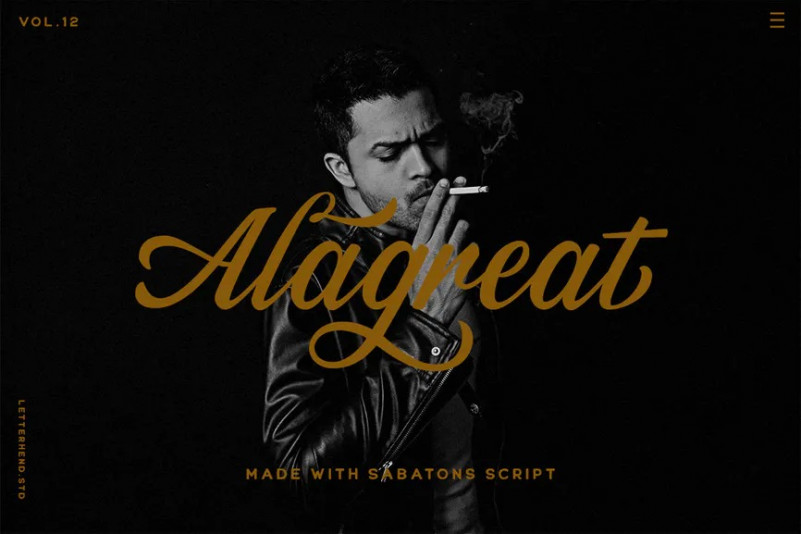
Sabatons Font
Introducing, Sabatons script. A nice handwritten script which consist with two style, regular and stamp. This item is really perfect for you who needs a typeface for especially logotype, apparel, invitation, branding, packaging, advertising etc. This typeface has features :